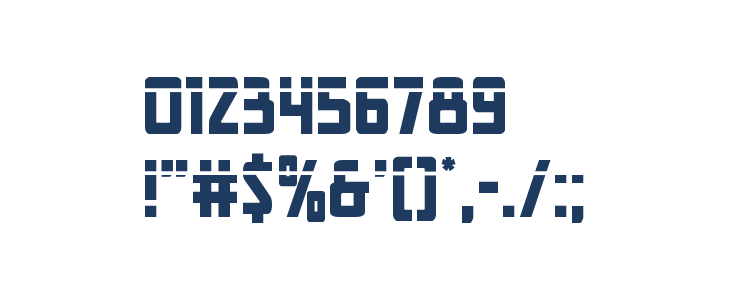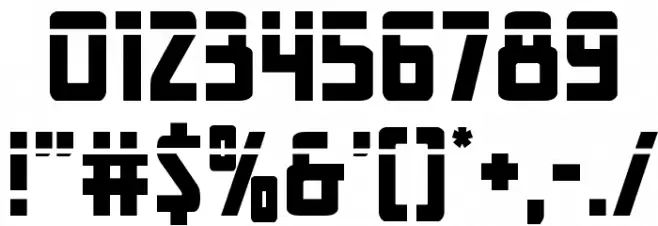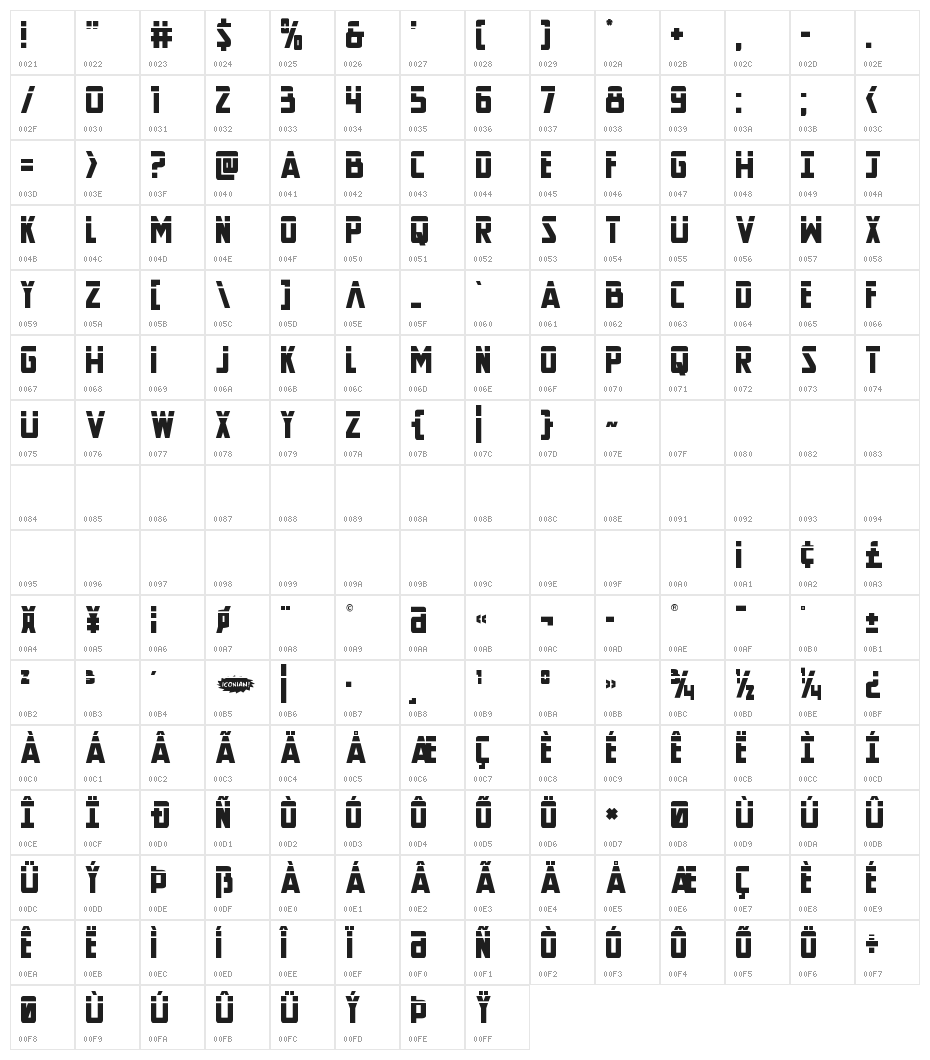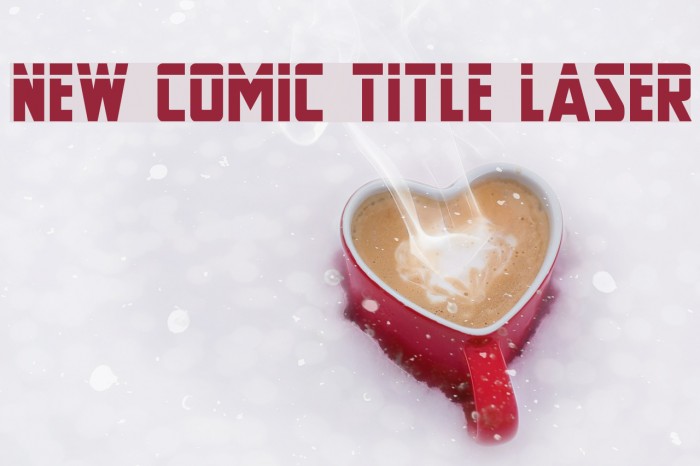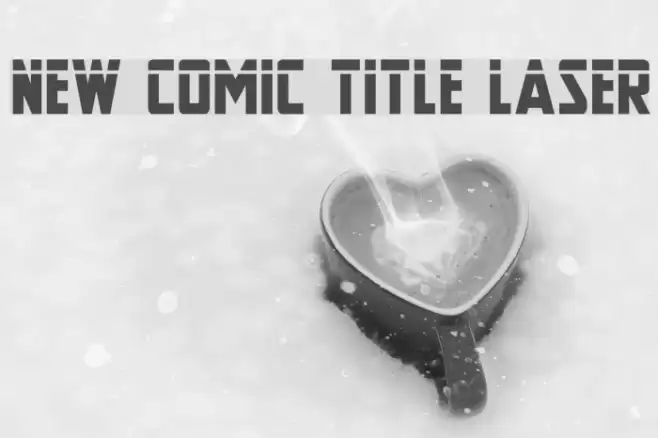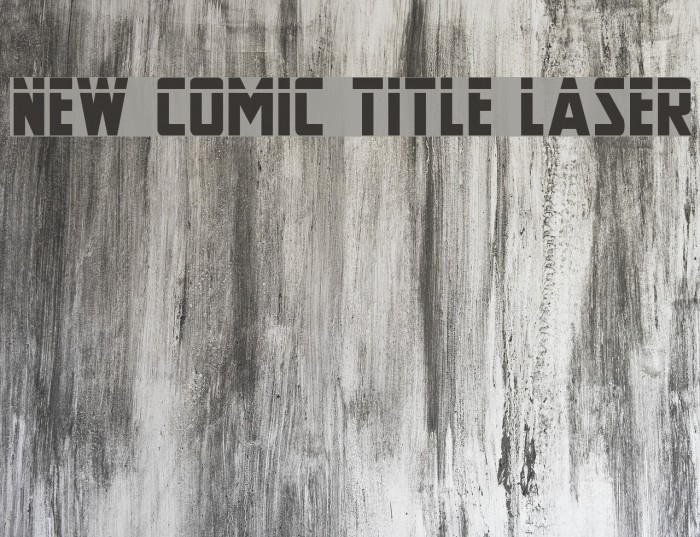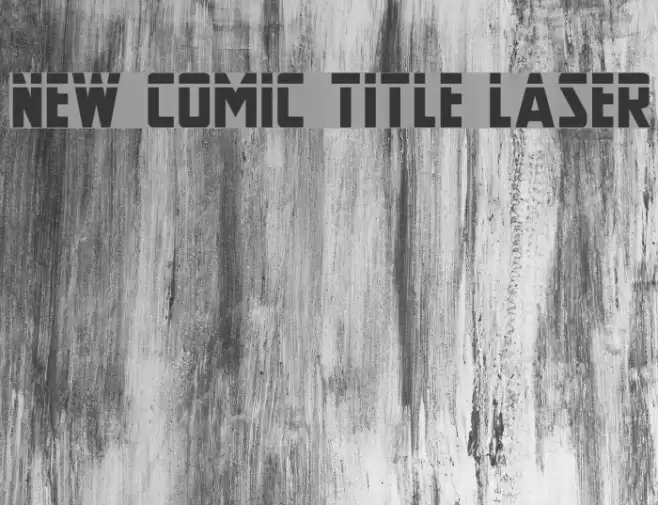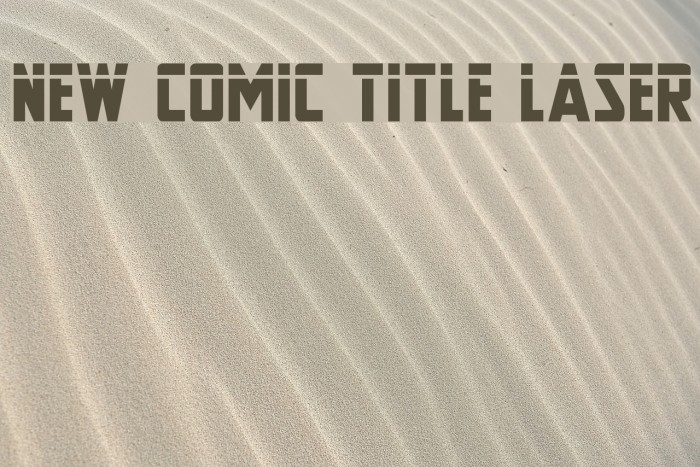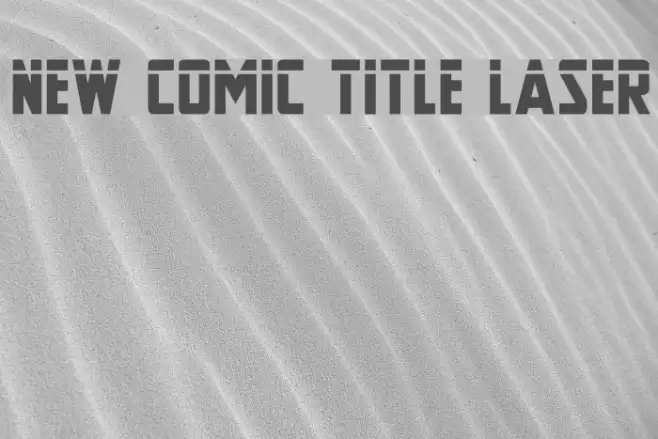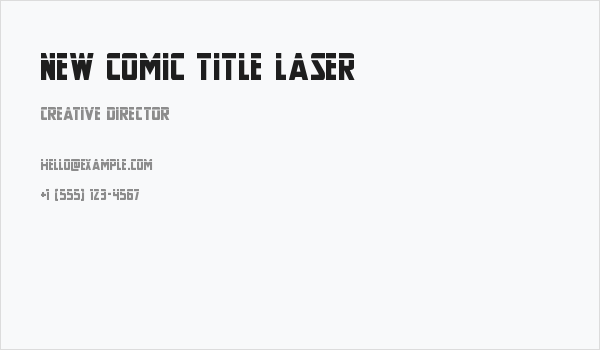
New Comic Title Laser Font
New Comic Title Laser Description
This font features a bold and geometric design, characterized by its blocky and angular letterforms. The uppercase and lowercase letters maintain a consistent height, giving it a uniform appearance. The strokes are thick and consistent, with sharp edges and corners that create a futuristic and industrial feel. The numerals and special characters follow the same design principles, ensuring a cohesive look across all glyphs. The font's style is reminiscent of digital or sci-fi themes, making it suitable for projects that require a modern and edgy aesthetic.